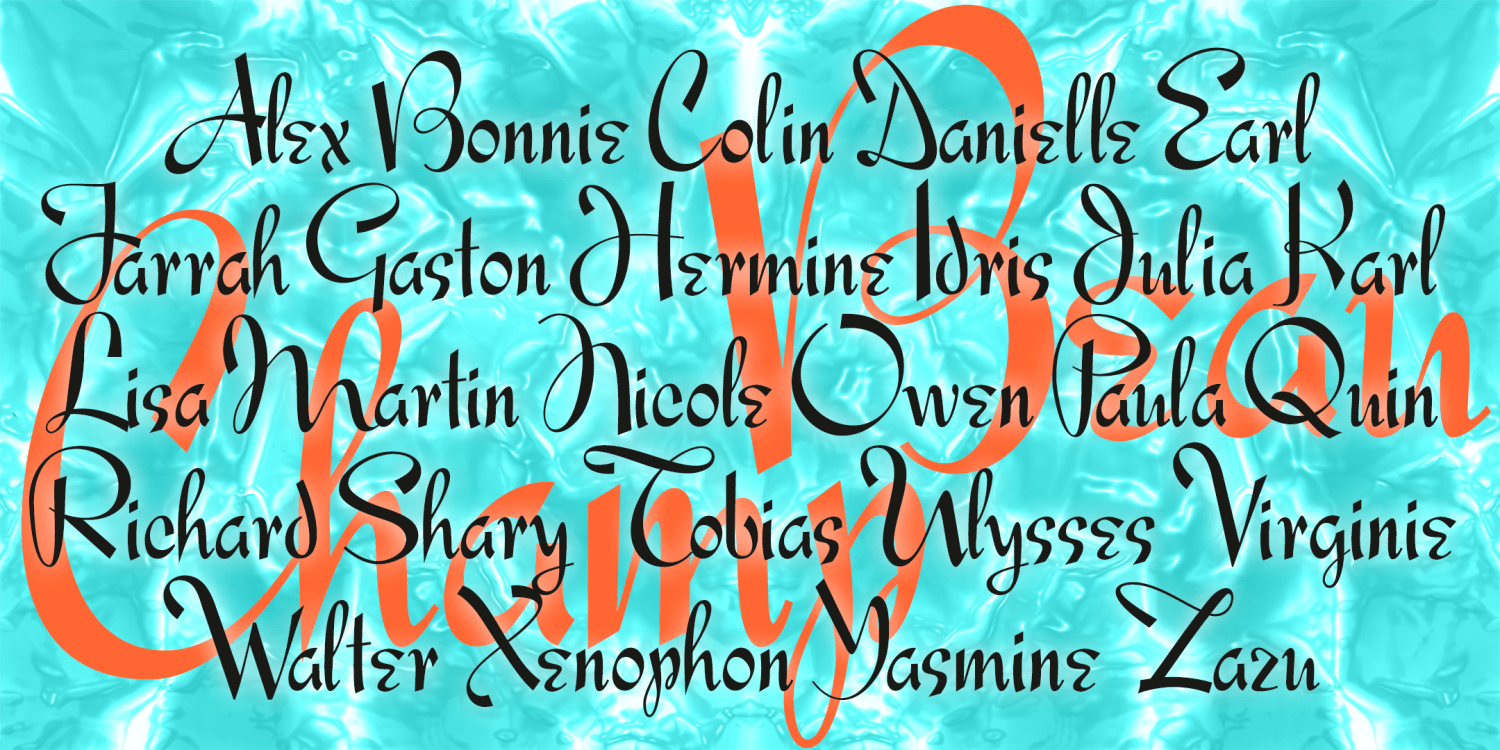
Beauchamp
BEAUCHAMP is a script-style font with energy and elegance. Inspired by vintage French showcard lettering of the 1940s, BEAUCHAMP is crisp and legible with a lot of unpredictable character. My friend Jeff Levine started this and turned it over to me for completion.
The Beauchamp font family includes 346 glyphs.